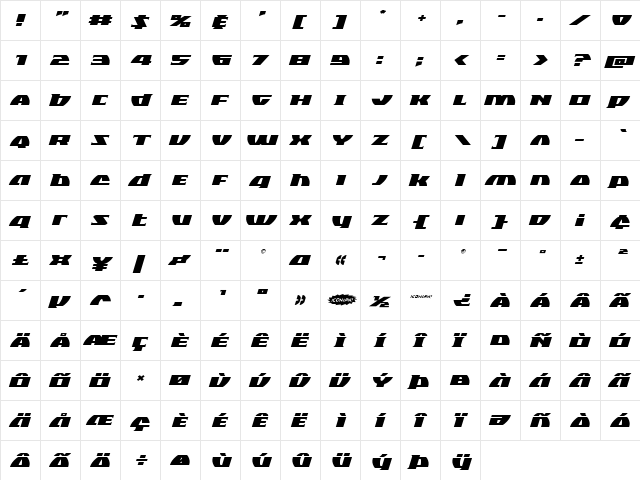
Black Bishop Expanded Italic Expanded Italic
Design Context for Black Bishop Expanded Italic Typeface
Black Bishop Expanded Italic is a composed and adaptable typeface that performs quietly and consistently across a wide range of design contexts. The dynamic lean of this cut emphasises speed and emphasis in any layout.
Pro Tip: Try Black Bishop Expanded Italic for annotation and caption copy alongside an upright companion — the contrast in angle creates a dynamic but ordered typographic system.